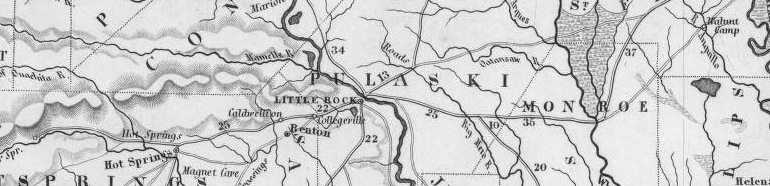
Type scene in Arkansas | ||
Texarkana, AR-based designer (b. 1987) of the blackboard-chalk font Alicia / Untitled (2009). [Google] [More] ⦿ | |
During her studies at the University of Central Arkansas in Conway, AR, Allison Lea Armstrong designed Architecture Anatomy Font (2016, decorative caps) and the related artchitect (2016). [Google] [More] ⦿ | |
Graphic designer in Jonesboro, AR, who created these typefaces during his studies at Arkansas State University:
Arkansas-based designer (b. 1986) who created the handwriting font O Ashy (2006). Dafont link. [Google] [More] ⦿ | |
Originally from Canon Springs, Bethanny Lyons is now located in Siloam Springs, AR. She designed the wavy sans typeface Lyonsgate (2019). [Google] [More] ⦿ | |
Brandon Burkeen is a web application developer, designer, investor and entrepreneur. He resides in Hot Springs, AR. Creator of the hand-printed typefaces Portland (2011) and Grundy (2011). Fontspace link. [Google] [More] ⦿ | |
Brian M. Zick
Arkansas-based creator of the free hand-printed typeface Shaved Ice (2012). [Google] [More] ⦿ | |
Charles Wyrick (Little Rock, AR) made Redchuck (2009, Fontcapture font). [Google] [More] ⦿ | |
Daniel H. Luecking
A researcher in the Department of Mathematical Sciences, University of Arkansas, who specializes in metafont. He made the travel dingbat typeface "nkarta15", a correction and extension of the free metafont "karta" which in turn is of unknown origin. He also made a metapost file out of it. Download these fonts here. I took the liberty of making a tfm file with tfmpktest.pl, and from the tfm abd mf files, with the help of mftrace and t1utils, I made afm and pfb files: nkarta15 (type 1) (2008). [Google] [More] ⦿ | |
Derek Yaniger
Graphic designer in Little Rock, AR. In 2014, he created the medieval typeface 33 Lions for private use. [Google] [More] ⦿ | |
Fontclod
| Brian Zick (Jasper, Arkansas) created the open source on-line font editor Font Clod in 2012. [Google] [More] ⦿ |
While studying graphic design at the Academy of Art University in San Francisco, Hanisha Amin (b. UK), who was raised in Arkansas, created an unnamed techno typeface in 2013. Behance link. [Google] [More] ⦿ | |
Rogers, AR-based designer of the tall avant garde display typeface Albatross (2015). [Google] [More] ⦿ | |
Creator of Echo (2010), a free squarish typeface. Matthew (b. 1990) is from MH, Arkansas. [Google] [More] ⦿ | |
mfpic
| A free program with macros to help draw metafont figures. Its history: MFpic was initiated by Tom Leathrum in 1992. At some point in version 0.2.x most of the development passed to Geoffrey Tobin. In 1996, when the (unreleased) version was at 0.2.14, Dan Luecking began trying to transform mfpic's Metafont code into MetaPost code, and then folding MetaPost support into mfpic.tex. With Geoffrey Tobin's help, and that of a small group of mfpic aficionados on the Net, Luecking published mfpic v. 0.5. Dan Luecking is at the Department of Mathematical Sciences, University of Arkansas. [Google] [More] ⦿ |
Mister Retro
At Sideshow, together with Stuart sandler in 2008, he published Creaky Tiki, Creaky Frank, Creaky Solid, and Derekbats. Derek Yaniger and Stuart Sandler published Wildsville: The Art of Derek Yaniger. Klingspor link. [Google] [MyFonts] [More] ⦿ |
Samuel Gray (Little Rock, Arkansas) practices surrealism in his art. He created the free typeface SamFree (2012). Behance link. [Google] [More] ⦿ | |
Scott Elkins is the founder (in 2004) and creative director of Elkins Design in Bentonville, AR. His work includes the free rounded sans all caps typeface Phorion (2012). Behance link. [Google] [More] ⦿ | |
Designer in Fayetteville, AR, who created the vhighly experimental font Adius (2013), for which he drew inspiration from Frank Lloyd Wright's architecture. [Google] [More] ⦿ | |
Stephen McBride (b. 1967) is based in Kansas City, MO, and before that in Edwardsville, KS and Earle, AR. He is the man behind the SWMCA Catalogs (est. 2012). An ex-signpainter, he is now turning his typefaces into digital fonts. Creator of the free hand-printed font Tribal (2012). The explanation is interesting: Tribal was first drawn in 1979 as Indian. For many years it was one of the most popular SWMCA fonts. Shortly there after there was a heavy movement among Native American tribes about being called "Indians". They'd constantly complain that they weren't from India or an Arabic nation. In response, SWMCA changed the name to Typeface (later Typefont) of Native American Honor. It was redrawn in 2012 and sent to Font Panda to be digitalized and came back more "liquidity" and much more playful than the original. Tribal was followed by Tribal Schoolhouse (2012). In 2013, he designed the hand-printed typeface families Fun Euro Schoolhouse, 2013 SWMCA Demo, Watermelon Stand, 2013 Demo of Cadaver's Script (eerie), Midtown Roman, Hexagonal Delight (angular script), Ol West Rustik, Disco Grudge and 12 Steps. Typefaces from 2014: Pupil Light, Kansas City Gothic Caps (blackletter), Kabbalah, Area 51 UFO (+Apocalypse, a glazkrak typeface). In 2015, he designed the free brush typeface 99% Occupy in support of the Occupy Movement. Dafont link. Home page. Dafont link. Fontspace link. [Google] [More] ⦿ | |
Vanna is a Vietnamese American designer from Bentonville, AR, living in Minneapolis. Graduate of TypeWest, class of 2021. Her typefaces:
VS Software in Little Rock, AR, offers these products and services: signature/logo font making, Jet True (TrueType to PCL font converter for 325 USD), barcode and MICR fonts, FontGen v1 (300 USD: bitmap font editor, 7 formats). About FontGen: FontGen's most common format is a 300 or 600 dpi PCL 5 bitmap font for use with the PCL driver of an HP or compatible laser printer. [Google] [More] ⦿ |